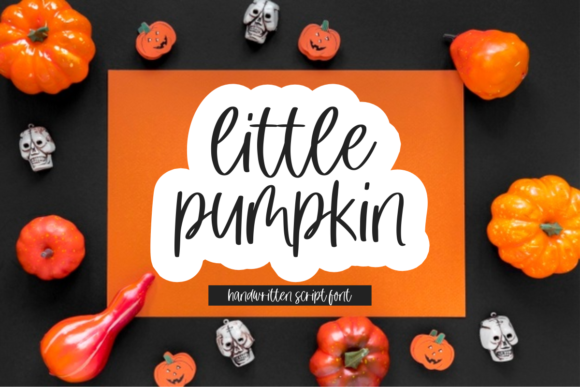
Dive into the world of Little Pumpkin Font - a remarkable script font family that captivates with its free-spirited charm. Let your imagination run wild as you explore the endless creative possibilities with Little Pumpkin, the best font for photography logo designs. Originally crafted by the talented Fikryal Studio, this font exudes a relaxed, flowing, and casual handwritten aesthetic that elevates any project it touches.
With Little Pumpkin, you're not just downloading a font; you're inviting creativity to take center stage. Whether you're a seasoned graphic designer or simply someone with a passion for DIY projects, this font is the perfect companion to transform your ideas into stunning visual masterpieces.
Imagine your Instagram feed adorned with breathtaking visuals, each post enhanced by the captivating charm of Little Pumpkin. Its flowing lines add a touch of elegance and sophistication to your text, making every caption and quote stand out with a unique, personal touch.
But Little Pumpkin's allure extends far beyond the digital realm. Unleash your inner artist and explore the wonders of calligraphy with this font as your guide. Create personalized greeting cards, design enchanting invitations, or add a touch of whimsy to your DIY projects with the help of Little Pumpkin. Each letter dances across the page, carrying a message of joy and creativity that's sure to leave a lasting impression.
With Little Pumpkin, your creative spirit has no bounds. Whether you're a professional designer seeking to elevate your projects or an enthusiast looking to infuse your DIY creations with a touch of magic, this font is your ultimate muse. Embrace the beauty of handwritten artistry and let Little Pumpkin guide you on a journey of visual storytelling.
So, take the plunge and bring Little Pumpkin into your creative arsenal today. Experience the joy of crafting designs that resonate with emotion, spark conversations, and leave an indelible mark on your audience. Let Little Pumpkin ignite your imagination and transform your creative vision into a reality.